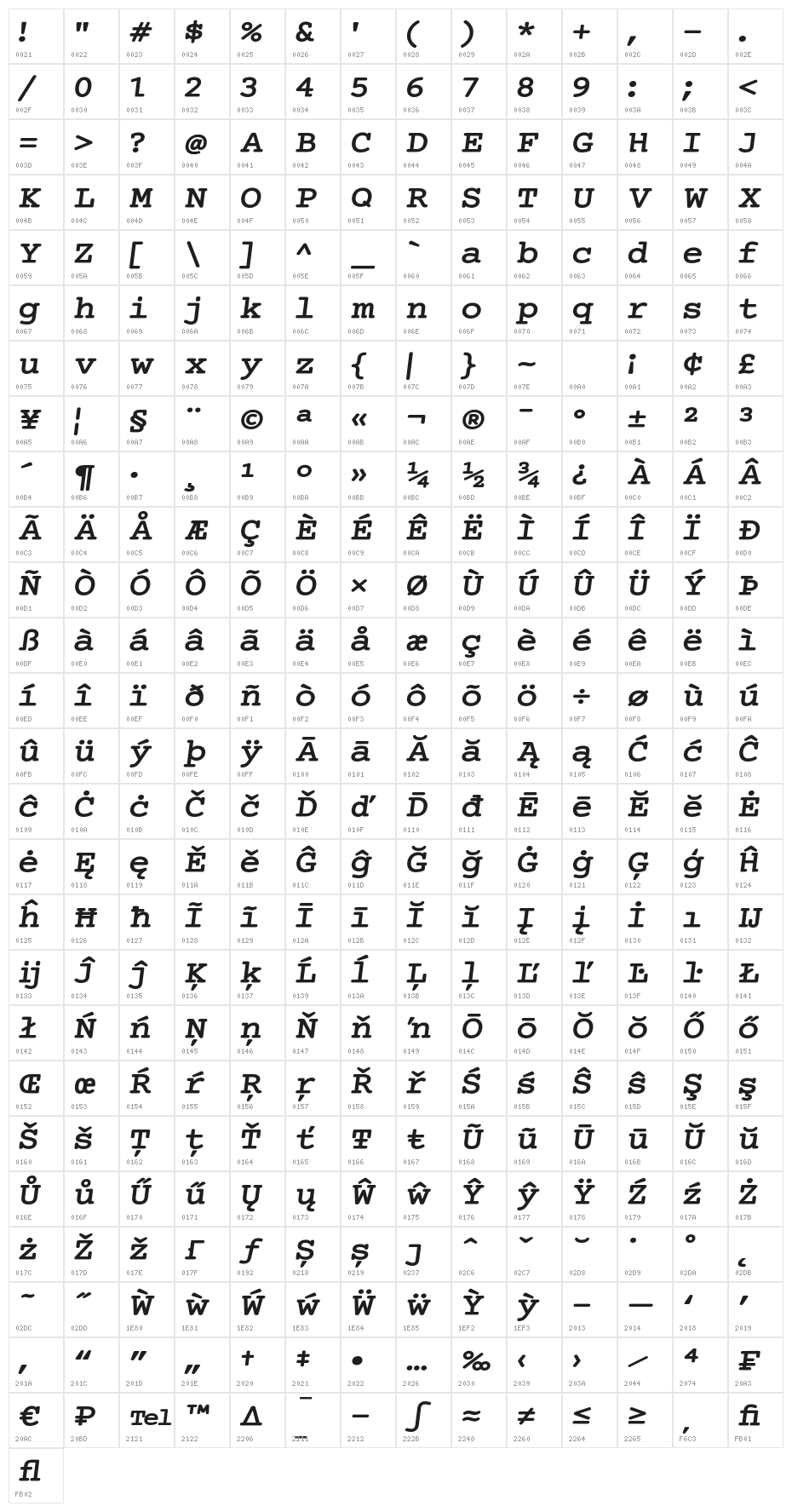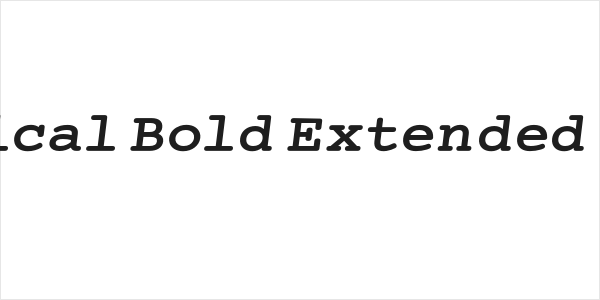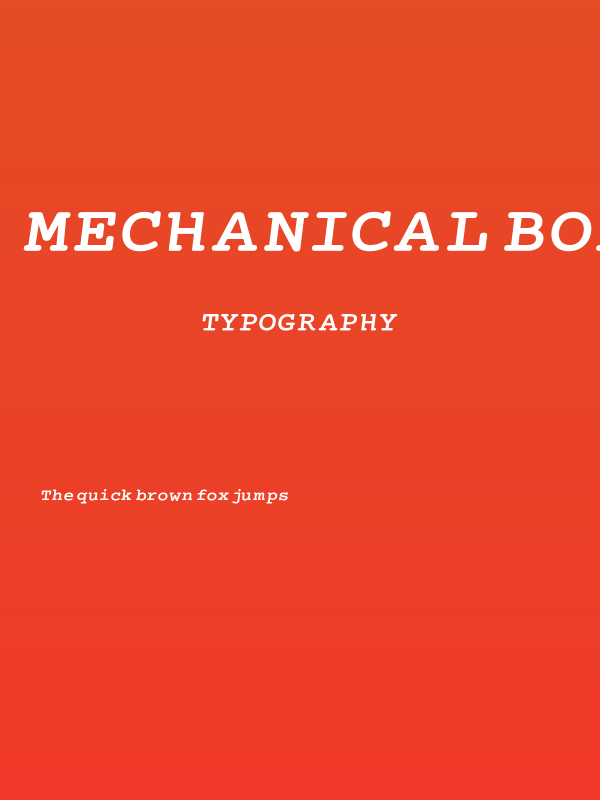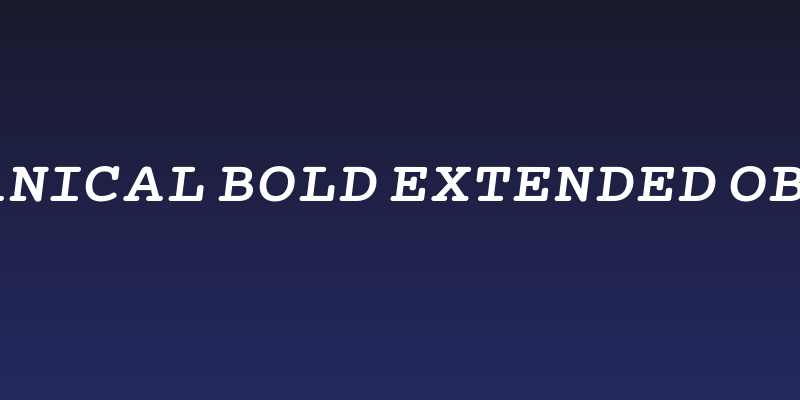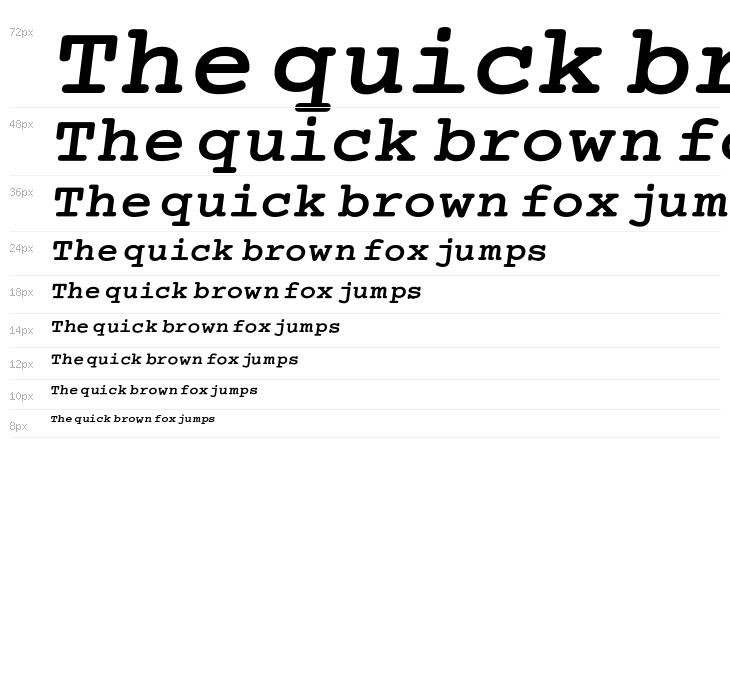
Mechanical Bold Extended Oblique Font
Mechanical Bold Extended Oblique Description
This font exhibits a bold and extended style with a distinct oblique slant, giving it a dynamic and modern appearance. The characters are well-defined with a mechanical precision, featuring rounded edges that soften the overall look. The uppercase letters are strong and commanding, while the lowercase letters maintain a consistent flow. Numbers are clear and easily distinguishable, making them suitable for various applications. The special characters are crafted with the same attention to detail, ensuring uniformity across the typeface. This font's boldness and slant make it ideal for projects that require a strong visual impact.